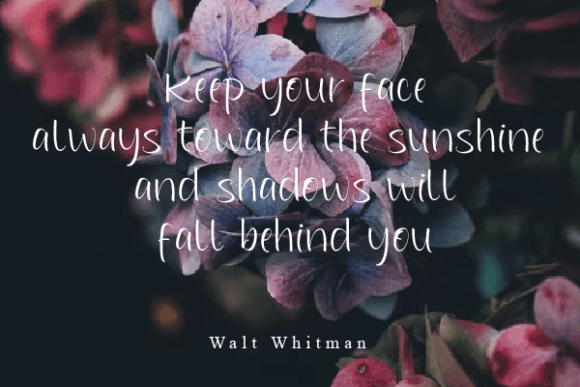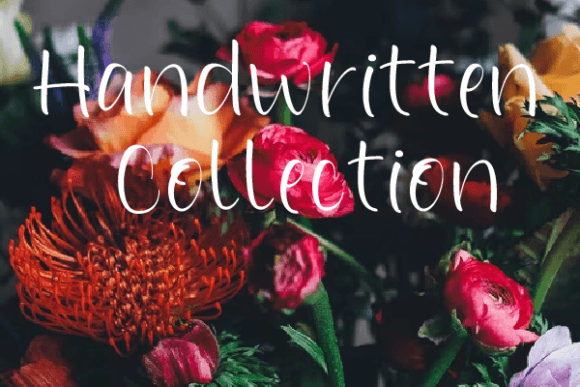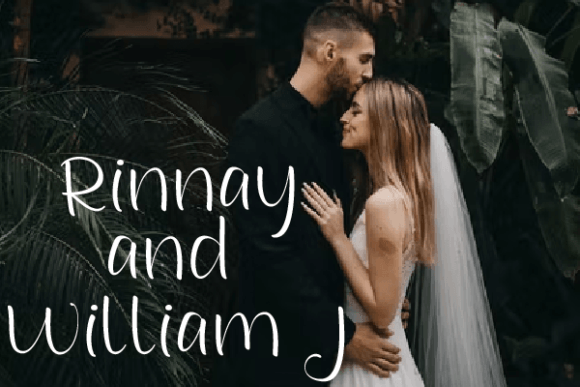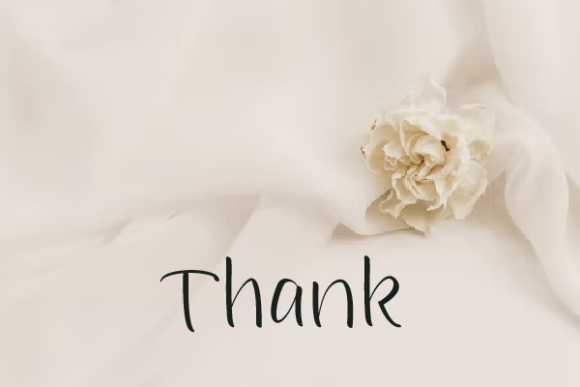
About Alessandria Font
Alessandria’s latest style letters offer a perfect blend of elegance and charm, making them ideal for a wide range of creative projects. Their sophisticated and stylish letterforms are incredibly versatile, making them suitable for various applications such as wall displays, wedding invitations, social media post logos, advertisements, product packaging, product designs, labels, photography, watermarks, invitations, stationery, and any project that benefits from a handwritten touch.
The font’s timeless appeal and handwritten aesthetic add a personal and authentic feel to your designs, making them visually engaging and captivating. Whether you’re aiming for a refined wedding invitation, eye-catching product packaging, or elegant stationery, Alessandria’s latest style letters bring a touch of sophistication to your projects, enhancing their overall visual impact.
With its versatility and elegance, Alessandria’s latest style letters can adapt to different design contexts, creating a cohesive and harmonious look across your various materials. Their fluid and graceful strokes make them an excellent choice for conveying emotions and adding a human touch to your visual communication.
Incorporating Alessandria’s latest style letters into your designs allows you to create a memorable and sophisticated visual identity. Whether you’re working on branding materials, promotional items, or personal projects, the font’s handwritten taste adds a sense of warmth and personality, making your designs more relatable and appealing to your audience.
Embrace the elegance and versatility of Alessandria’s latest style letters, and witness how they elevate your projects to a new level of sophistication. Their timeless charm and handwritten appeal make them a valuable asset in your creative toolkit, enabling you to craft designs that leave a lasting impression on your audience.